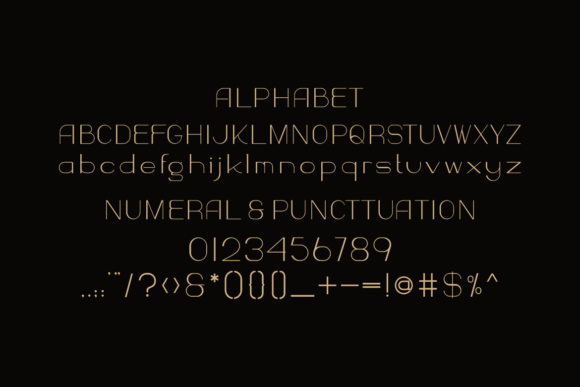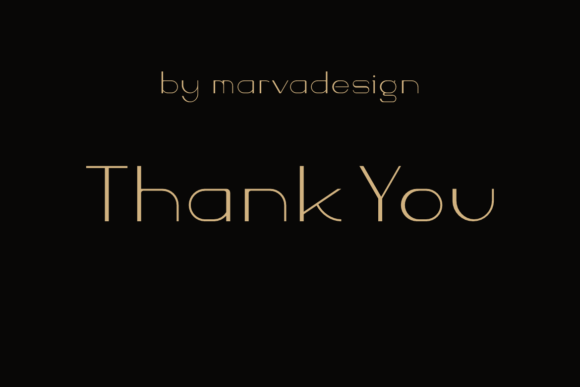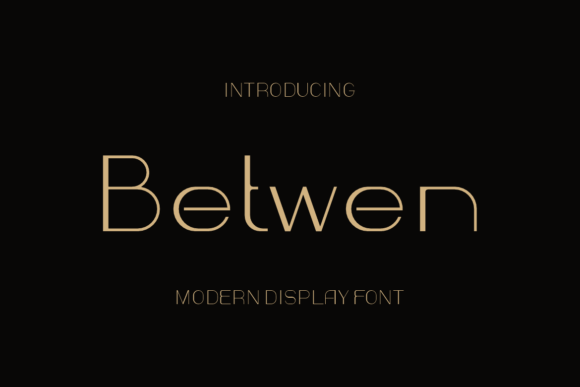
Introducing Betwen Font: The Ultimate Sans-Serif for Modern Designs
In the world of typography, a good font can make all the difference in creating a lasting impression. For designers and crafters, finding the perfect font that embodies simplicity, elegance, and versatility can be a daunting task. However, look no further than Betwen Font, a slim and authentic sans-serif font that is taking the design world by storm.
What is Betwen Font?
Betwen Font is a modern sans-serif font designed to provide a clean and minimalist aesthetic to any design project. Its slim and authentic style makes it perfect for a wide range of applications, from logos and t-shirt printing to product packaging and more. The font’s simplicity and elegance ensure that it can adapt to various contexts, making it a valuable addition to any designer’s toolkit.
Key Features of Betwen Font
- Slim and Authentic Design: Betwen Font boasts a sleek and modern design that exudes simplicity and sophistication.
- Versatility: The font is suitable for various design projects, including logos, t-shirt printing, product packaging, and more.
- Wide Range of Contexts: Betwen Font can be used in a variety of contexts, from digital platforms to print materials, ensuring that your design looks outstanding across different mediums.
- Ease of Use: The font is easy to read and understand, making it perfect for designs that require clear communication.
Benefits of Using Betwen Font
Betwen Font offers numerous benefits to designers and crafters, including:
- Unique Identity: The font’s slim and authentic design helps create a unique identity for your brand, setting it apart from the competition.
- Professional Look: Betwen Font gives your design a professional and polished look, making it perfect for businesses and individuals looking to establish a strong brand presence.
- Flexibility: The font’s versatility ensures that it can be used across various design projects, saving you time and effort in finding different fonts for different projects.
- Easy to Pair: Betwen Font can be easily paired with other fonts to create a cohesive and visually appealing design.
Use Cases for Betwen Font
Betwen Font is an incredibly versatile font that can be used in a variety of design projects, including:
- Logo Design: Create a lasting impression with a simple yet elegant logo that incorporates Betwen Font.
- T-Shirt Printing: Add a touch of modernity to your t-shirt designs with Betwen Font’s sleek and slim style.
- Product Packaging: Elevate your product packaging with a clean and minimalist design that showcases Betwen Font’s versatility.
- Digital Platforms: Use Betwen Font in your digital designs, such as website headers, social media graphics, and more, to create a cohesive brand identity.
In conclusion, Betwen Font is a game-changer for designers and crafters looking for a slim and authentic sans-serif font that can elevate their design projects. Its versatility, simplicity, and elegance make it perfect for a wide range of applications, from logos and t-shirt printing to product packaging and digital platforms. With Betwen Font, you can create a unique identity for your brand, establish a professional look, and ensure that your design stands out in a crowded market.